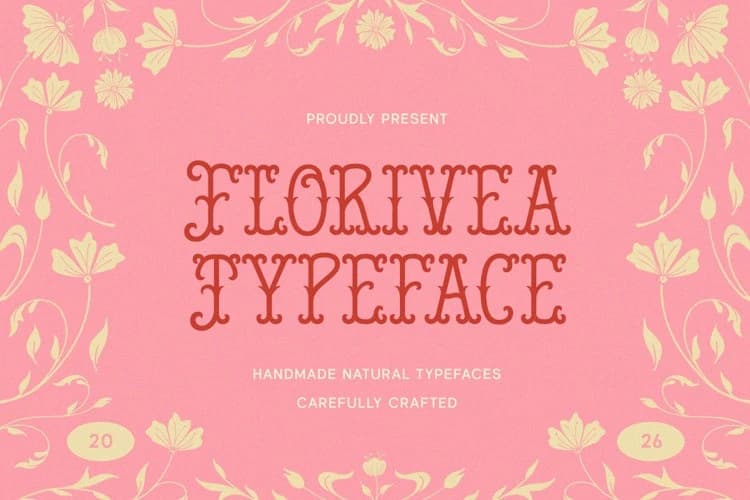
Florivea Font
Floriva Font feels like a sweet little throwback wrapped in soft petals and sunshine. With its curvy serif shapes, playful details, and slightly quirky rhythm, this font brings a gentle retro charm that’s both cute and eye-catching.